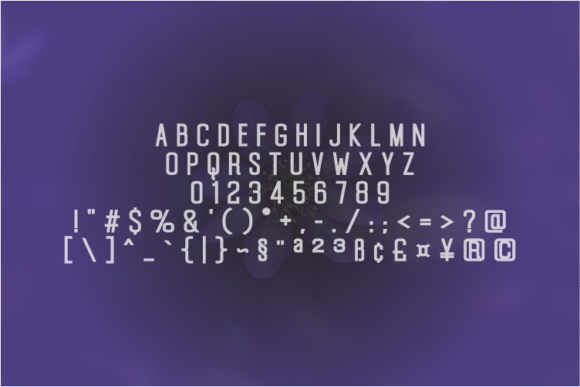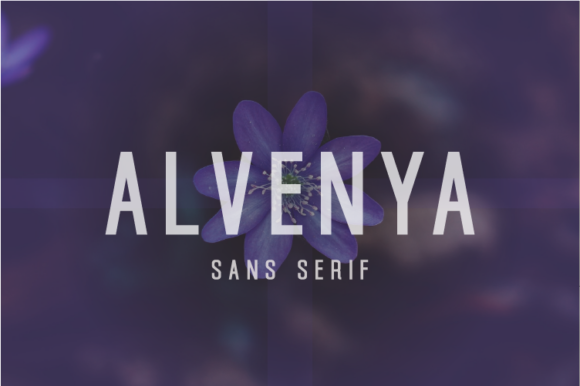
Introducing Alvenya Font: The Ultimate Sans Serif for Modern Designers
In the world of typography, fonts play a crucial role in conveying the tone and personality of a design. For designers and crafters looking for a modern and versatile sans serif font, Alvenya is an excellent choice. With its minimalistic and clean look, Alvenya font is perfect for a wide range of creative projects, from letterheads and titles to stationery and more.
What is Alvenya Font?
Alvenya is a sans serif font that boasts a sleek and contemporary design. Its simplicity and elegance make it an ideal choice for designers who want to add a touch of sophistication to their work. The font’s clean lines and minimalist aesthetic ensure that it remains legible and easy to read, even at smaller sizes.
Key Features of Alvenya Font
- Minimalistic Design: Alvenya’s design is characterized by its simplicity and lack of embellishments, making it perfect for modern designs.
- Versatility: The font’s versatility allows it to be used in a wide range of applications, from formal documents to creative projects.
- Legibility: Alvenya’s clean lines and simple shapes ensure that it remains easy to read, even at smaller sizes.
- Modern Look: The font’s modern aesthetic makes it perfect for designers who want to add a touch of sophistication to their work.
Use Cases for Alvenya Font
Alvenya font is suitable for a wide range of design projects, including:
- Letterheads and Stationery: Add a touch of professionalism to your letterheads and stationery with Alvenya’s clean and elegant design.
- Titles and Headings: Use Alvenya to create bold and eye-catching titles and headings for your designs.
- Logos and Branding: Alvenya’s modern look makes it perfect for logos and branding projects that require a clean and sophisticated aesthetic.
- Digital Media: Use Alvenya in digital media, such as social media graphics, presentations, and more.
Benefits of Using Alvenya Font
By using Alvenya font in your designs, you can:
- Enhance Legibility: Alvenya’s clean design ensures that your text remains easy to read, even at smaller sizes.
- Add Sophistication: The font’s modern aesthetic adds a touch of sophistication to your designs.
- Increase Versatility: Alvenya’s versatility allows you to use it in a wide range of design projects.
- Save Time: With Alvenya, you can quickly and easily create professional-looking designs without spending hours on typography.
In conclusion, Alvenya font is an excellent choice for designers and crafters looking for a modern and versatile sans serif font. Its minimalistic design, legibility, and versatility make it perfect for a wide range of creative projects. Whether you’re working on letterheads, titles, stationery, or more, Alvenya is sure to elevate your designs and add a touch of sophistication.